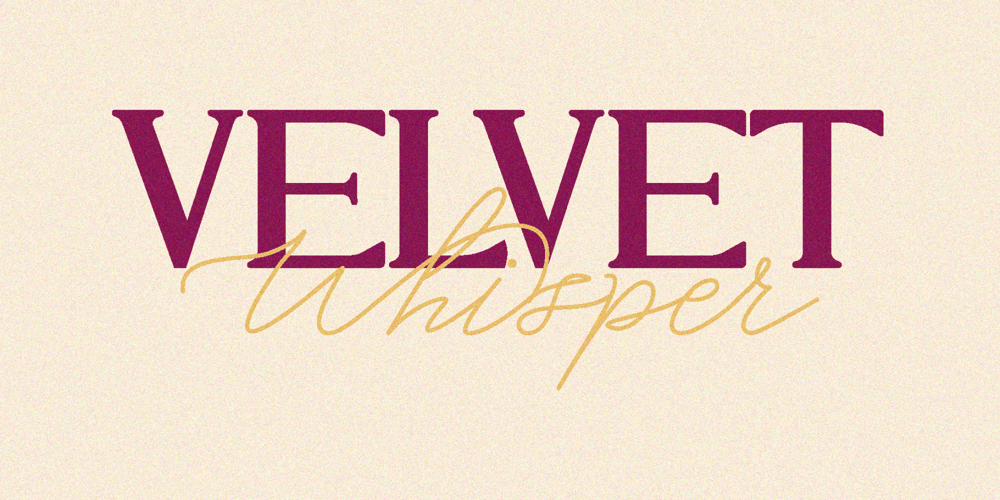
HT Velvet Whisper Font Family was designed by Yudi Setiawan and published by Wyarecreatype. HT Velvet Whisper contains 2 styles and family package options. Introducing Velvet Whisper Font Duo: A sophisticated serif typeface coupled with a playful handwritten script. Embracing a fusion of modern elegance and whimsical charm, Velvet Whisper Font Duo delivers a touch of luxury and refinement to a variety of creative projects. Whether adorning websites, crafting contemporary logos, defining brand identities, sprinkling social media quotes, designing wedding stationery, or bringing any imaginative concept to life, Velvet Whisper Font Duo invites you to express your vision with grace and allure.FEATURES Uppercase and Lowercase letters ligature feature Numbering and Punctuations Works on PC or Mac Simple Installation Support Adobe Illustrator, Adobe Photoshop, Adobe InDesign, also works on Microsoft Word Hope you Like it. Thanks.Helotype